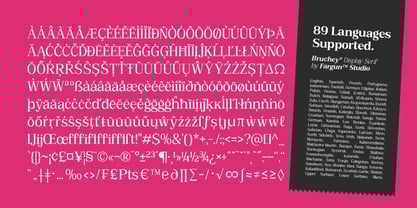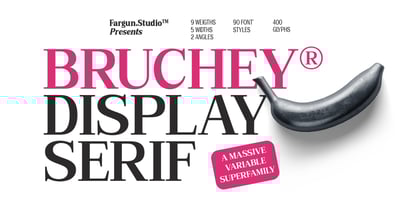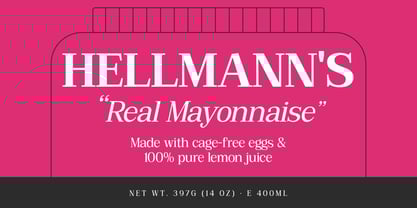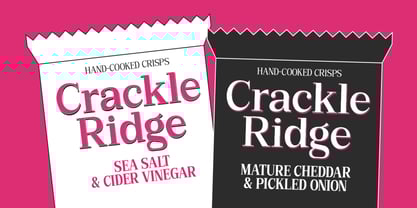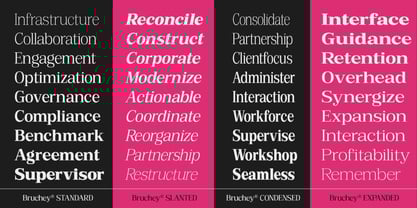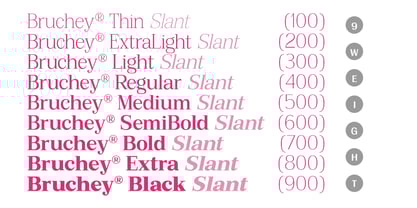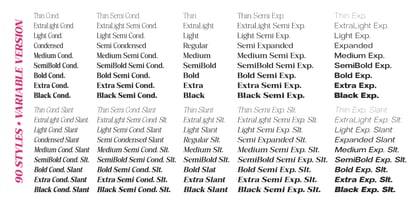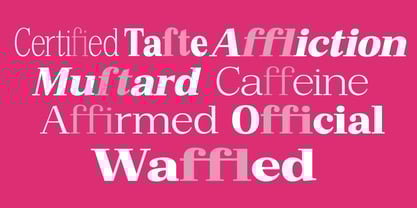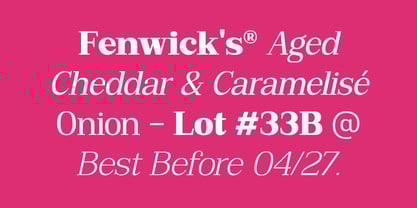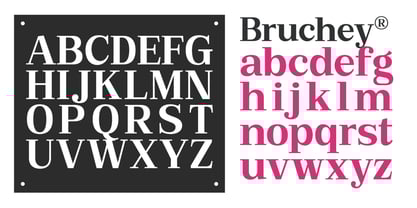
Bruchey
by Fargun Studio
The Bruchey Font Family was designed by Fajar Gunawan and published by Fargun Studio. Bruchey contains 91 styles and family package options. More about this family
Bruchey Serif is a refined variable serif that blends timeless elegance with a modern edge. Designed with graceful contrast and sculpted details, it delivers a luxurious, high-end feel while maintaining excellent readability. This variable superfamily includes 90 font files, featuring 7 weights, 9 widths, and 2 angles—giving you full flexibility to create everything from striking headlines to elegant body text with ease. Perfect for branding, editorial, fashion, luxury packaging, and premium design, Bruchey Serif adapts effortlessly across print and digital. Classic, versatile, and built for modern sophistication.
Designers: Fajar Gunawan
Foundry: Fargun Studio